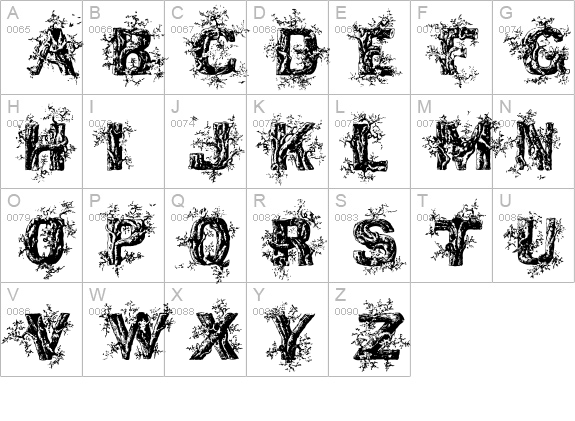
DeepWoodsInitials Font Details
DeepWoodsInitials is a captivating and intricate display font that exudes a sense of mystery and enchantment. Its unique design features ornate details and a rustic charm, making it perfect for projects that require a touch of old-world elegance. Each letter is carefully crafted to stand out and make a statement, drawing the viewer in with its alluring beauty. This font is a versatile choice for a wide range of design projects, from vintage-inspired branding to fantasy book covers. Its bold and distinctive style is sure to make your work stand out from the crowd and leave a lasting impression on your audience. Best of all, DeepWoodsInitials is available for free download at FontsMarket.com. So why wait? Add a touch of magic to your designs with this stunning font today!